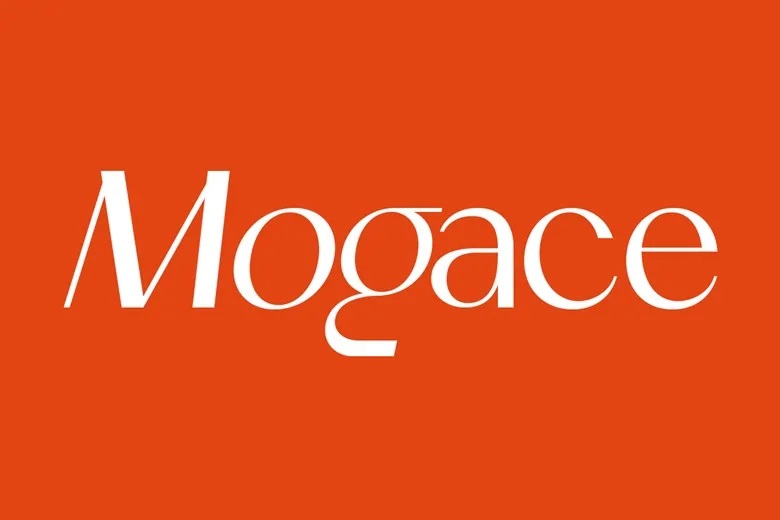
Mogace Font
Mogace is a modern sans-serif font that brings elegance and visual sophistication. Its high-contrast strokes, smooth curves, and balanced proportions give it a strong but graceful look for many uses.
Inspired by fashion magazines and luxury brands, this typeface is made for designers who want clarity, style, and a timeless look. Mogace works well for bold headlines or clean layouts, adding a unique editorial feel to your visual stories.
Mogace Sans Serif Font